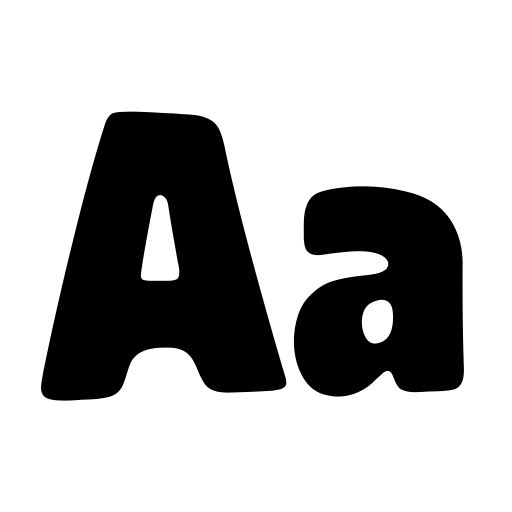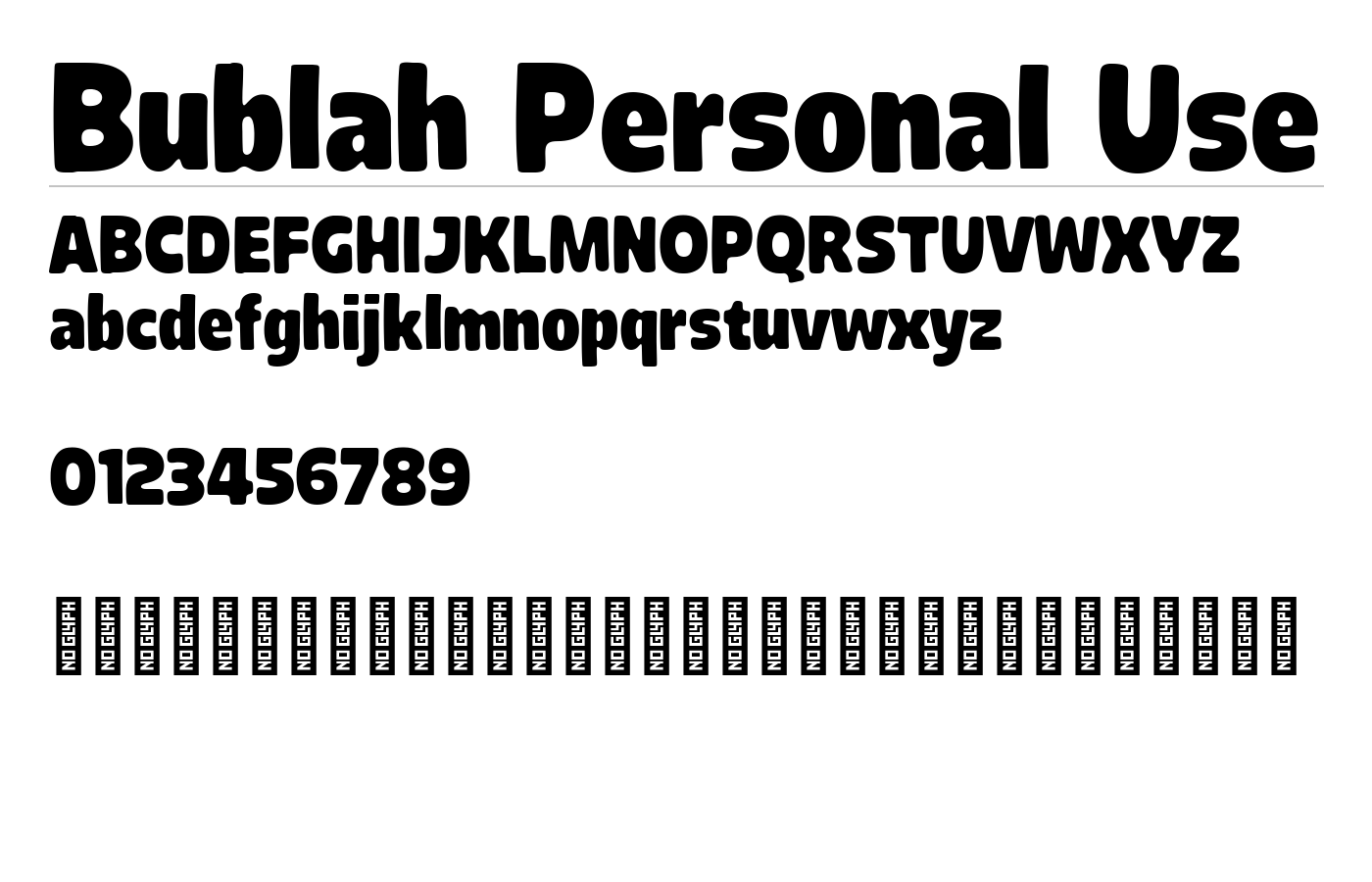
Bublah Personal Use is a bold, rounded sans serif font with a playful, friendly character perfect for casual and fun designs. Its thick, bubbly letterforms and consistent stroke weight give it a warm, approachable feel, making it ideal for children's materials, informal branding, and eye-catching headlines. This font works best in creative projects where a lively and inviting tone is desired.
Bublah Personal Use Font